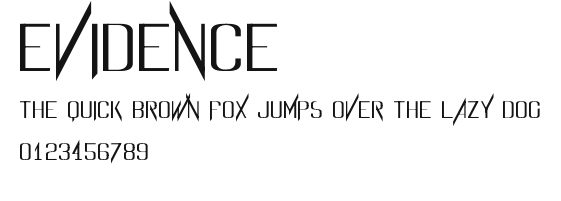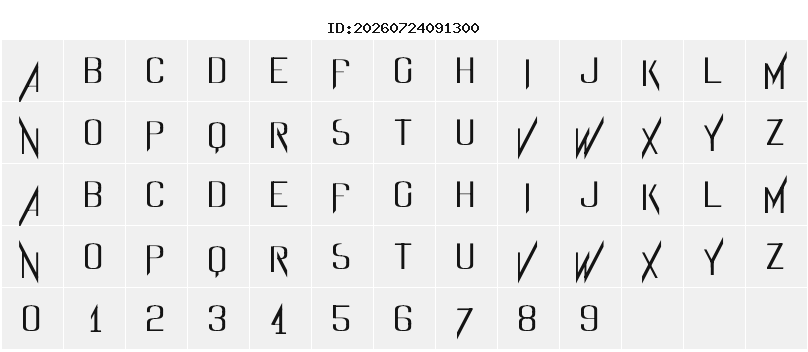
Evidence Preview
About Evidence.ttf
Evidence.ttf is a modern, elegant sans-serif font designed for ultimate readability and visual harmony. Perfect for branding, headlines, web design, and print materials.